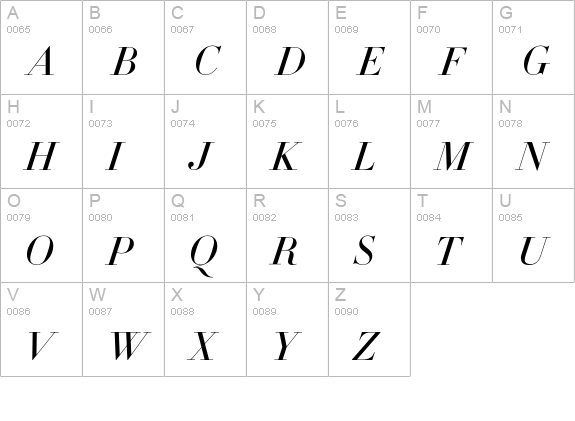
Didot-HTF-L24-Light-Ital Font Details
Didot-HTF-L24-Light-Ital is a refined, elegant variant in the Didot typeface family \xE2\x80\x94 well suited to elegant body text, refined sub-headings, and luxury branding.
Didot-HTF-L24-Light-Ital is a stylish and elegant font that exudes sophistication and refined taste. With its delicate strokes and graceful curves, this font is perfect for adding a touch of luxury to any design project. Whether you are creating a wedding invitation, a high-end fashion magazine, or a luxury brand logo, Didot-HTF-L24-Light-Ital will elevate your design to the next level. The light italic weight of this font adds a sense of elegance and subtlety, making it the perfect choice for conveying a sense of sophistication and charm. Its classic yet contemporary style makes it versatile for a wide range of applications, from print materials to digital designs. What's even better is that Didot-HTF-L24-Light-Ital is available for free download at FontsMarket.com. This means you can easily access this stunning font and use it in your projects without any cost. Don't miss out on the opportunity to enhance your designs with the timeless beauty of Didot-HTF-L24-Light-Ital.